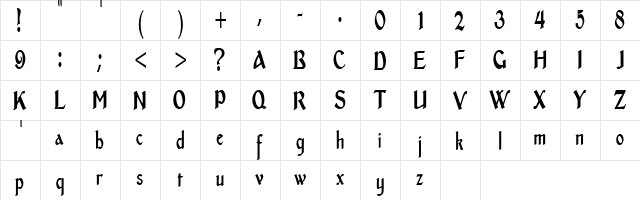
MiddleAgesCondensed Regular
Design Context for MiddleAgesCondensed Typeface
MiddleAgesCondensed is a composed and adaptable typeface that performs quietly and consistently across a wide range of design contexts. The condensed width makes it efficient for tight spaces without sacrificing legibility.